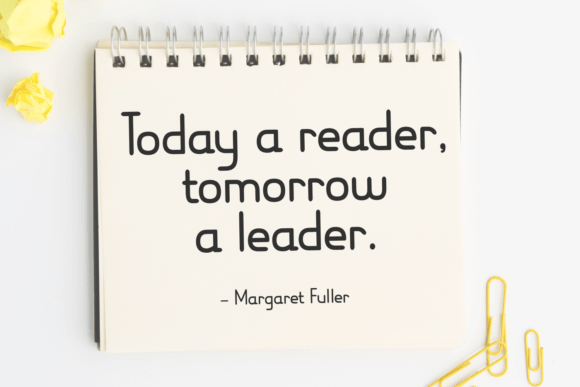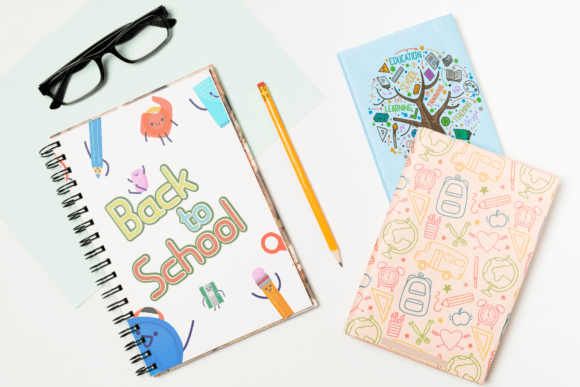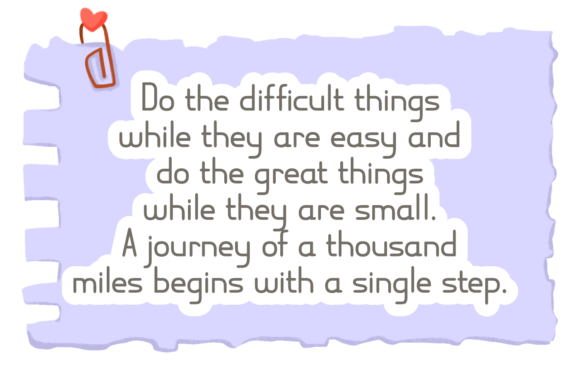
Introducing the Beautiful Notebook Font: Elevate Your Designs with Elegance and Flair
Are you a designer, crafter, or DIY enthusiast looking for a font that combines minimalist elegance with a refreshingly alternative vibe? Look no further! Our Beautiful Notebook Font is here to revolutionize your creative projects. This stunning Sans Serif typeface is designed to bring a touch of handmade charm to your designs, making it perfect for a wide range of applications.
A Font that Speaks to Your Creativity
Our Beautiful Notebook Font is more than just a collection of letters – it’s a creative partner that helps you bring your vision to life. With its impeccable fusion of traditional and contemporary typographies, this font is ideal for designers and crafters who want to make a statement. Whether you’re working on an authentic apparel design, a book cover, sticker notes, or greeting cards, this font is sure to add an irresistible flair.
The versatility of our Beautiful Notebook Font is one of its most striking features. Use it to:
- Create clean, attention-grabbing brand elements that set you apart from the crowd
- Embolden a magazine layout or packaging with a modern, fresh look
- Customize back-to-school notes, simple planners, or trendy fan shirts with ease
- Add a special touch to your Happy Mother’s Day or Spring-themed designs
A Font Collection that Offers Variety and Style
Our Beautiful Notebook Font collection includes a range of tailored styles to suit your design needs. With its round, smooth characters, this Multilingual Sans Serif Font is perfect for bringing quotes to life. The seamless blend of traditional and contemporary typographies ensures that your designs look polished and professional.
What Sets Our Font Apart
So, what makes our Beautiful Notebook Font so special? Here are just a few features that set it apart:
- Multilingual support: Our font is designed to support multiple languages, making it perfect for designers who work with international clients or want to create designs that appeal to a global audience
- Handmade accents: The font’s handmade accents add a touch of warmth and personality to your designs, setting them apart from more generic fonts
- Alternative vibe: The font’s refreshingly alternative vibe makes it perfect for designers who want to create bold, eye-catching designs that stand out from the crowd
Tips for Using Our Beautiful Notebook Font
To get the most out of our Beautiful Notebook Font, here are a few tips:
- Experiment with different styles: Our font collection includes a range of tailored styles, so don’t be afraid to experiment and find the one that works best for your design
- Mix and match with other fonts: Our Beautiful Notebook Font pairs well with other fonts, so feel free to mix and match to create a unique look
- Pay attention to typography: The font’s smooth, round characters are designed to be easy to read, so make sure to use it in a way that takes advantage of its typographic features
| Font Name | Beautiful Notebook Font |
| Author | Andal (7NTypes) |